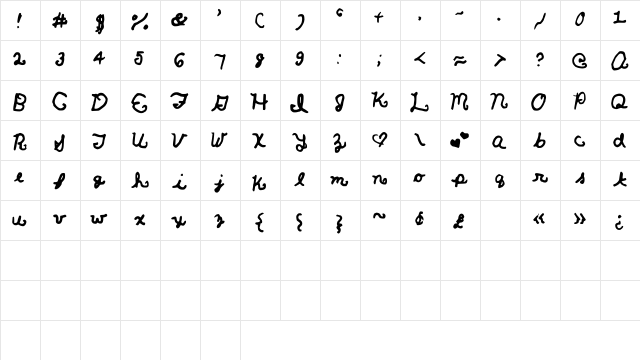
MereCurlicues Medium
Design Context for MereCurlicues Typeface
MereCurlicues is a composed and adaptable typeface that performs quietly and consistently across a wide range of design contexts.